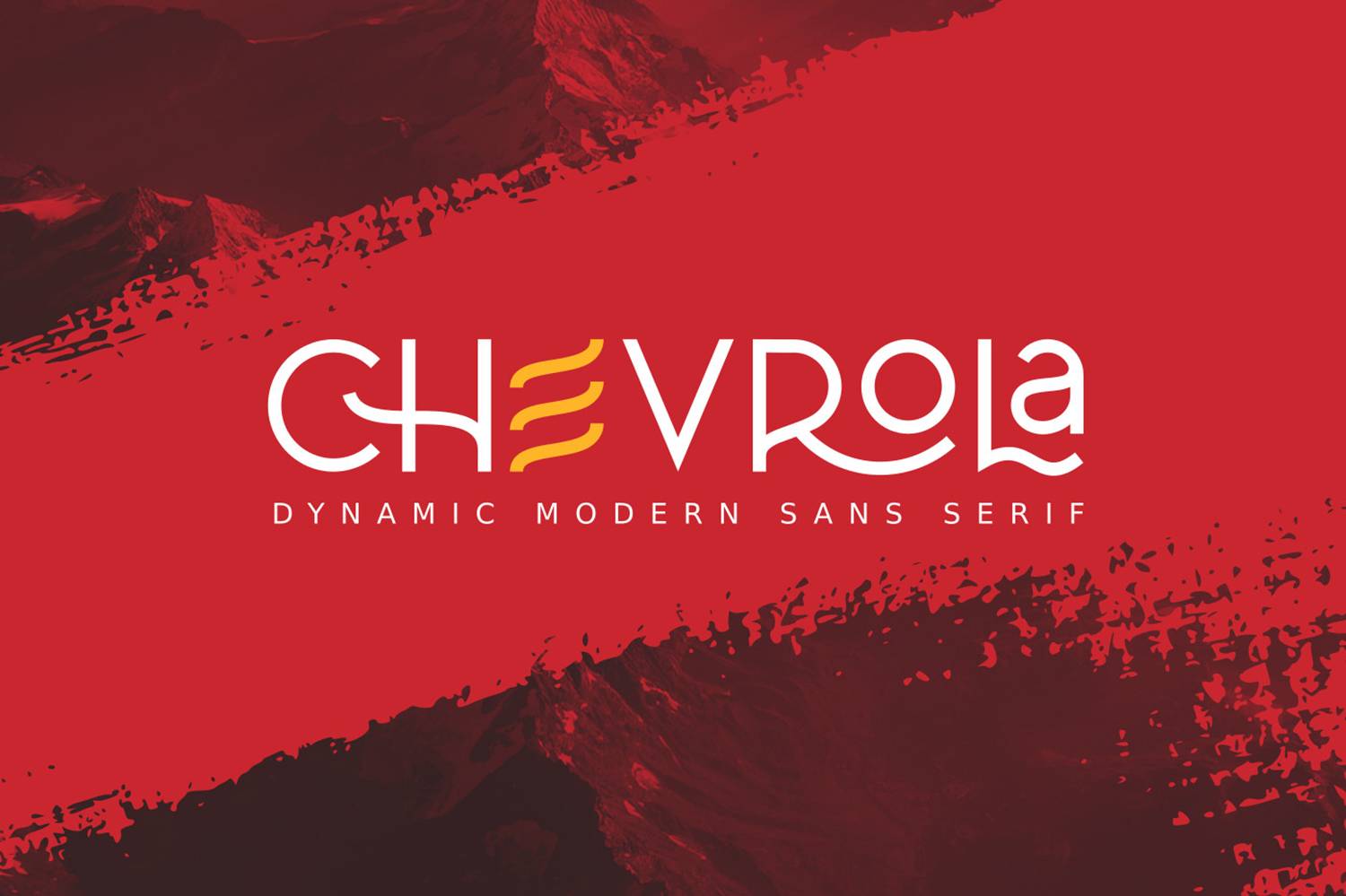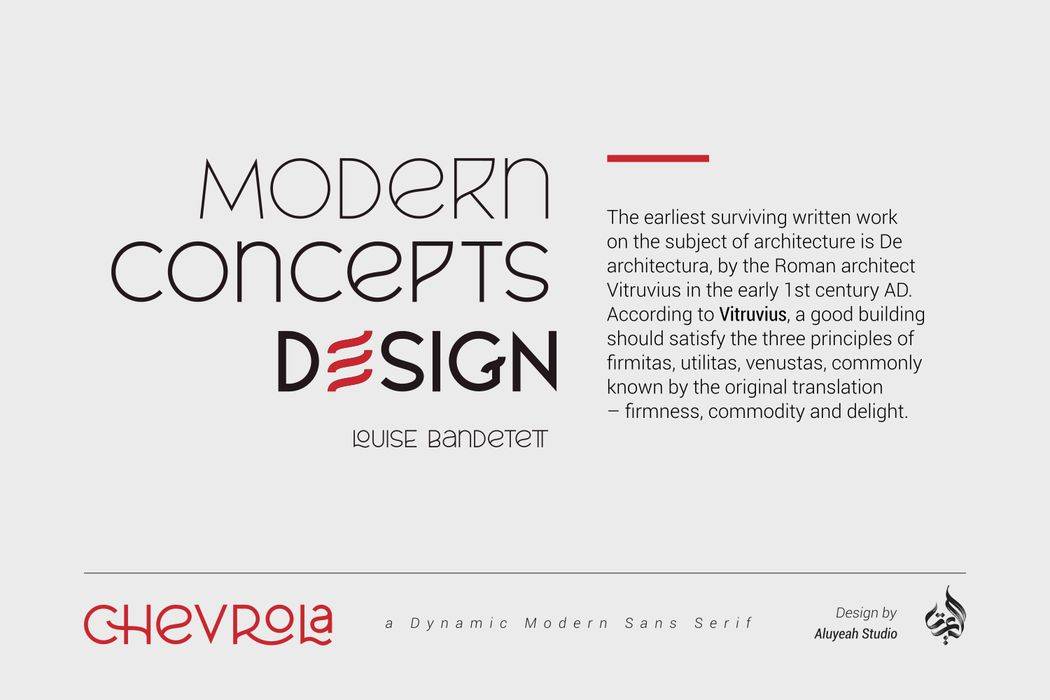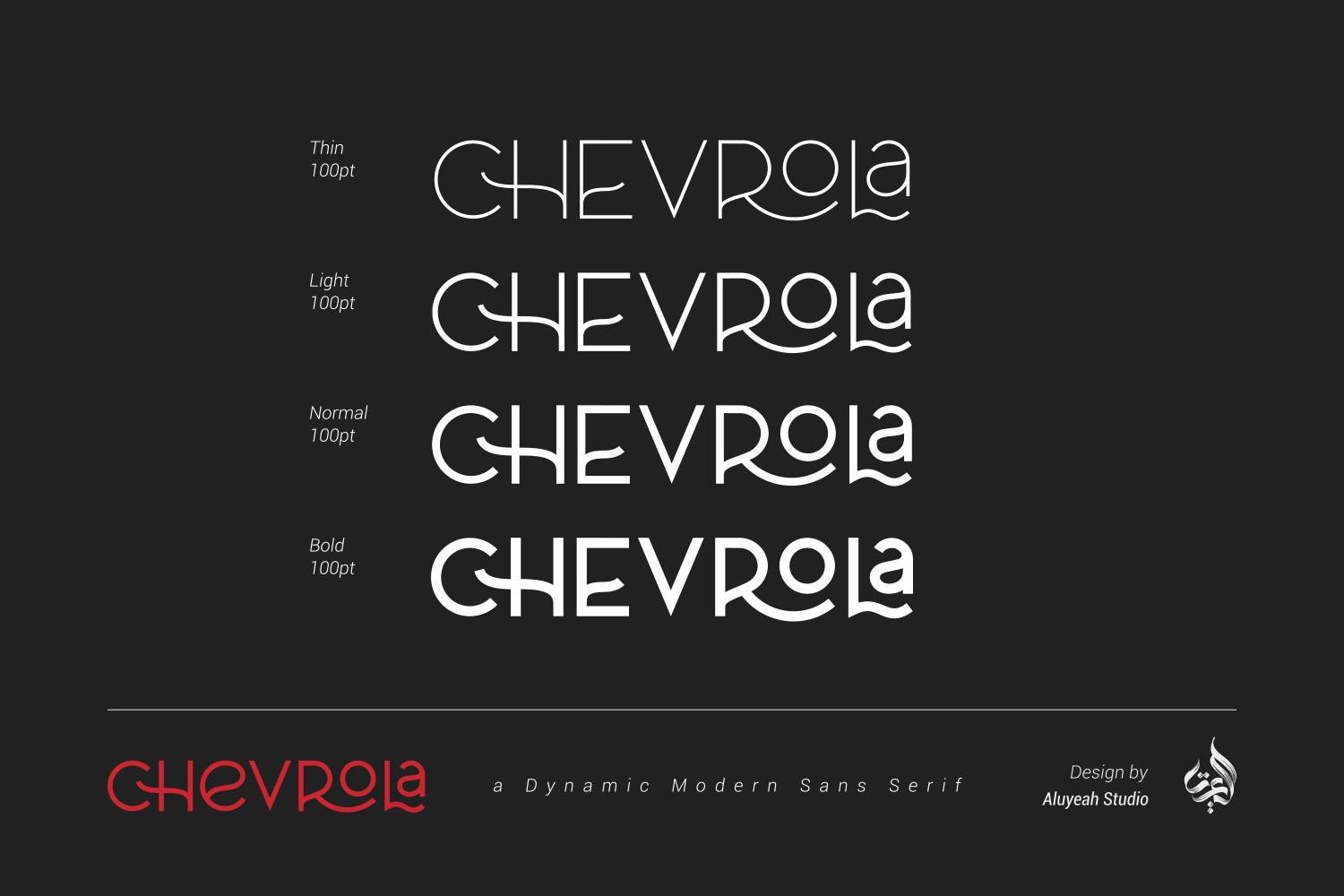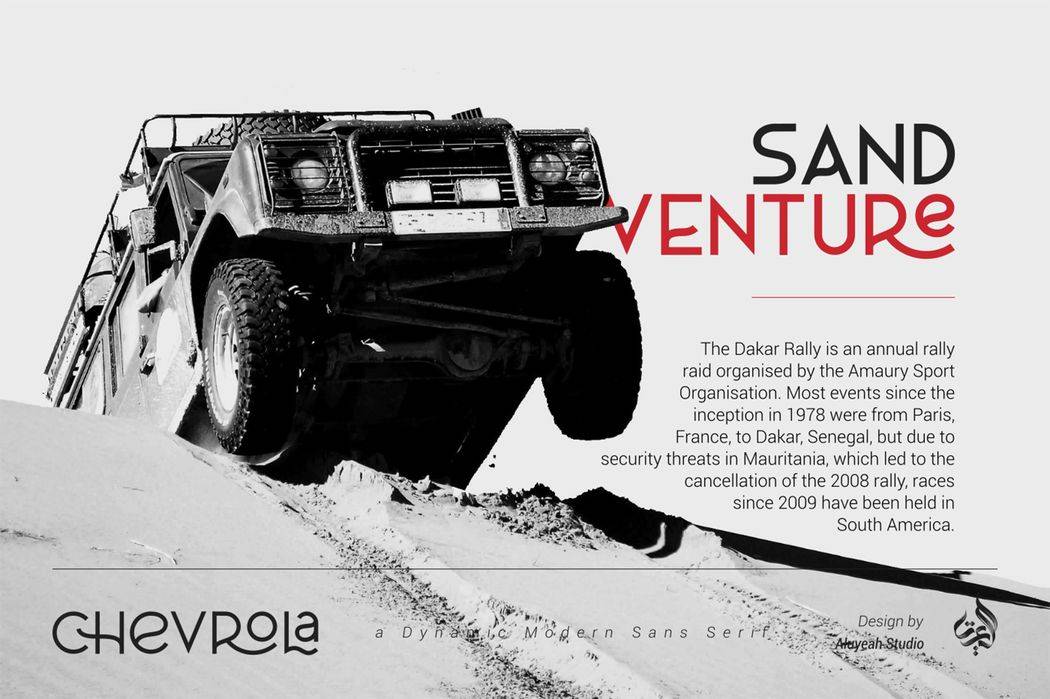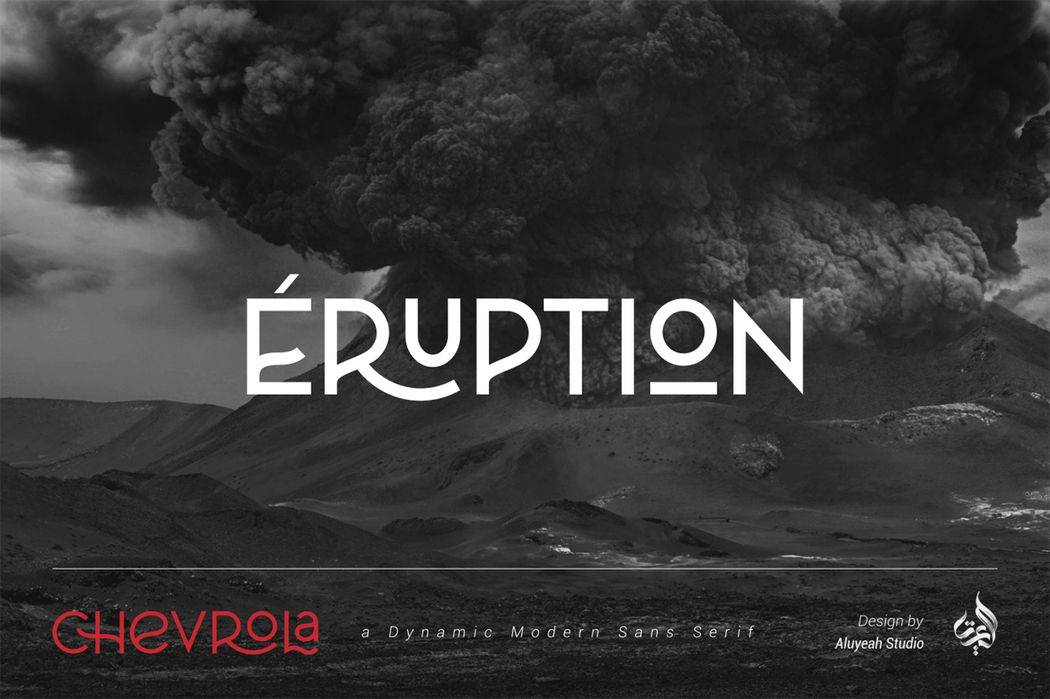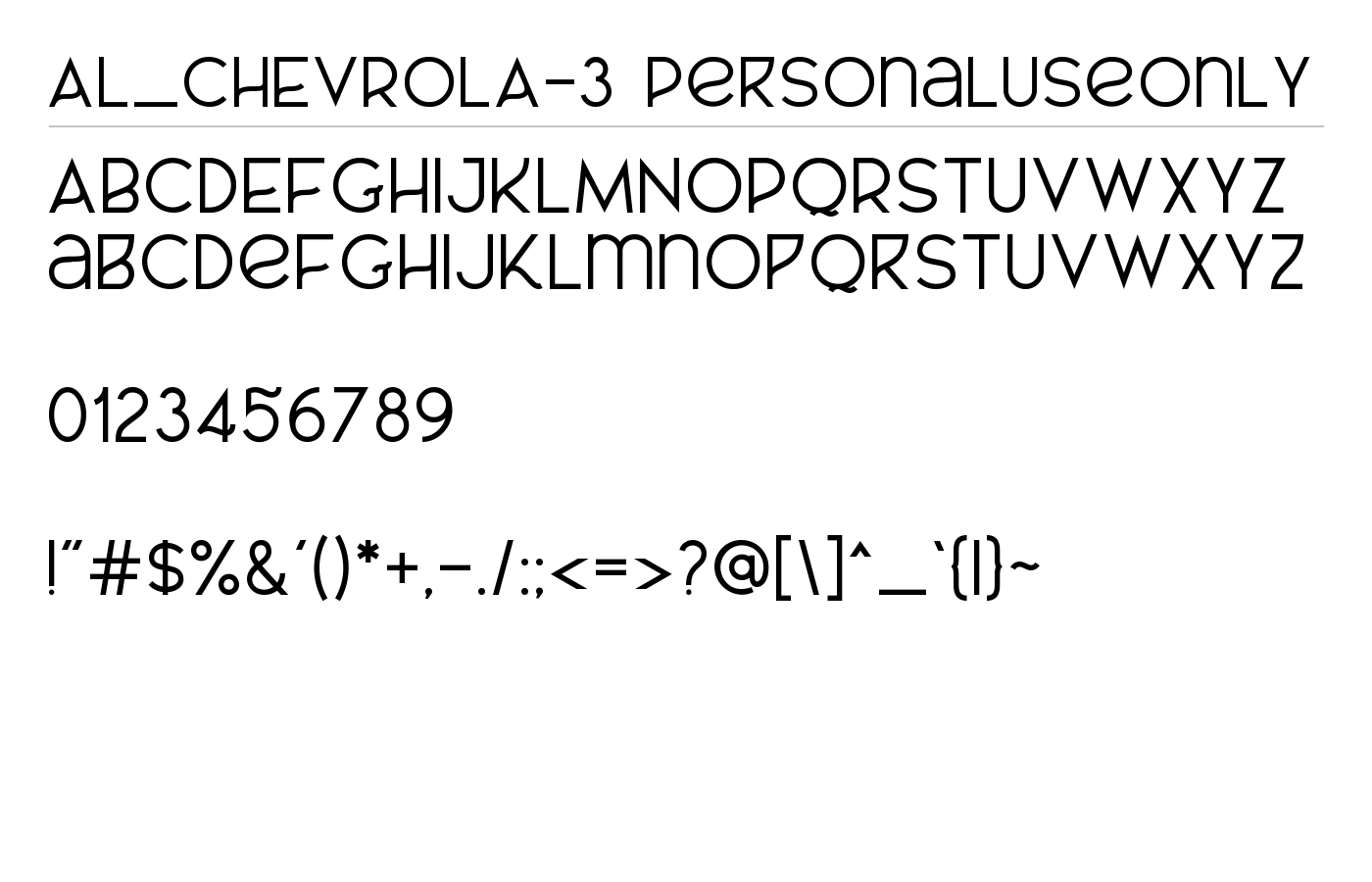
Chevrola is a unique sans serif font featuring a light weight and a tall, narrow structure with a modern, slightly playful touch. Its clean lines are paired with subtle, quirky details in certain letters, giving it a distinctive, artistic personality that works well for creative branding, headlines, and contemporary design projects needing a fresh, elegant look. This font is ideal for use in logos, editorial layouts, and digital media where a refined yet approachable style is desired.
Chevrola Font
About Chevrola Font